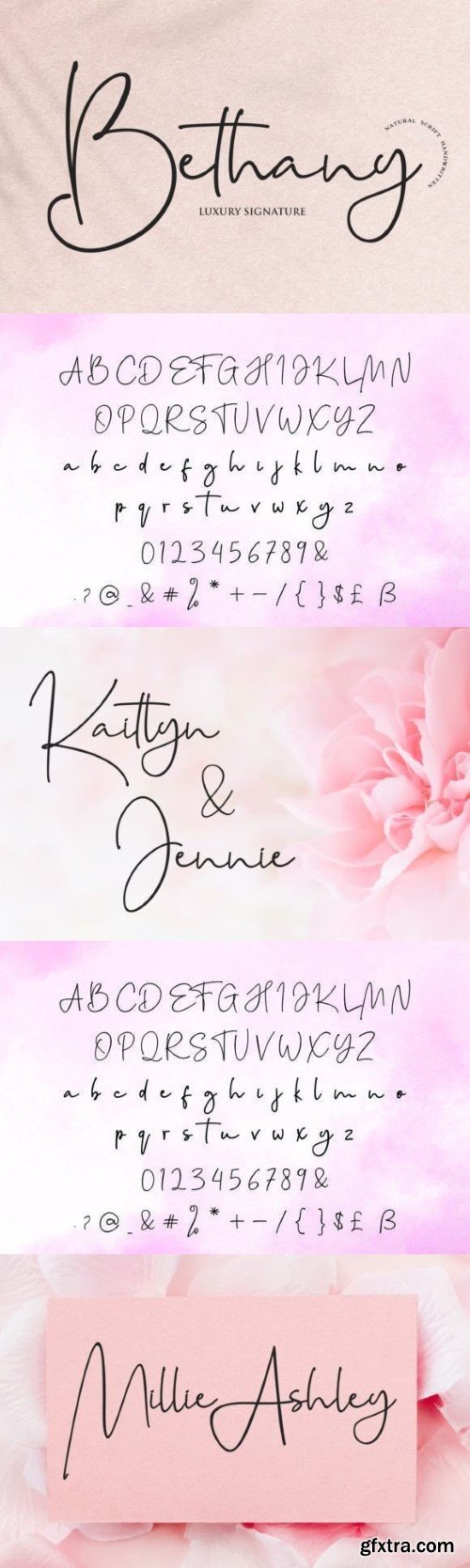
贝思妮·福恩特
The “Bethany” font is a stunning and sophisticated signature-style typeface that exudes elegance and charm. With its graceful and fluid letterforms, this font captures the essence of a handcrafted signature, making it perfect for adding a personal touch to various design projects.